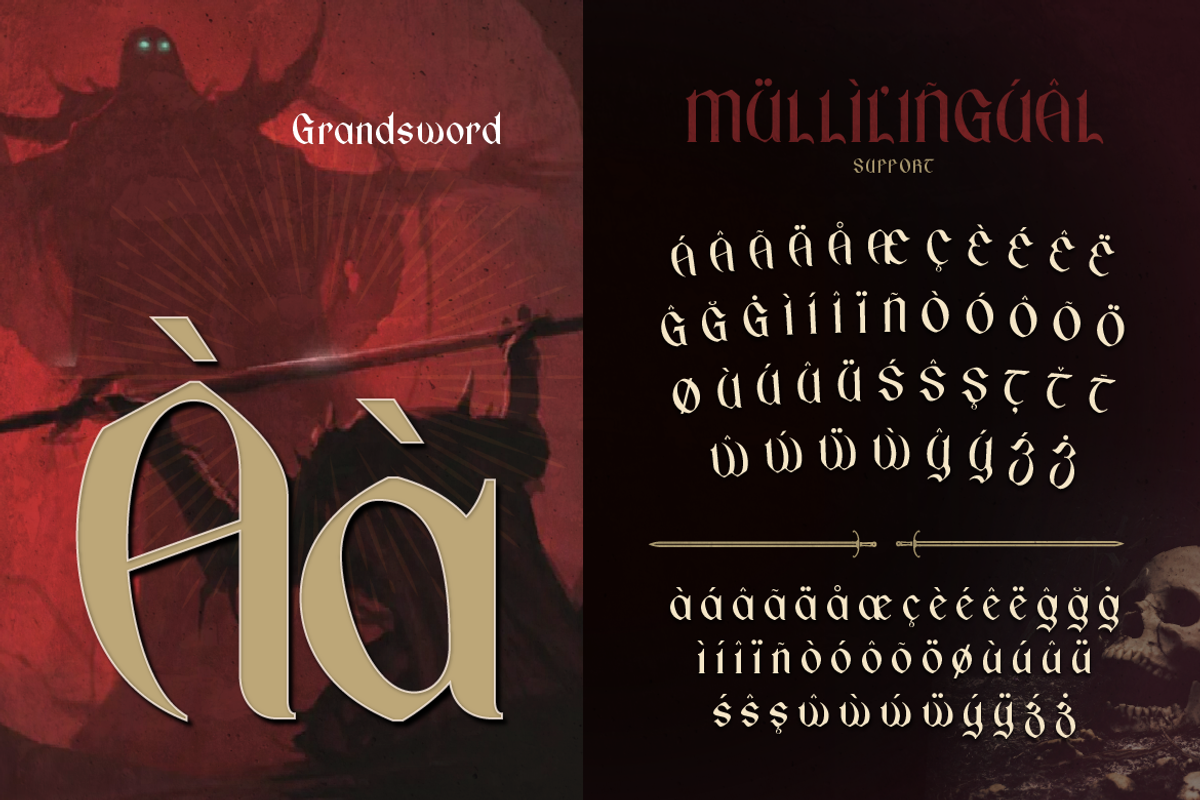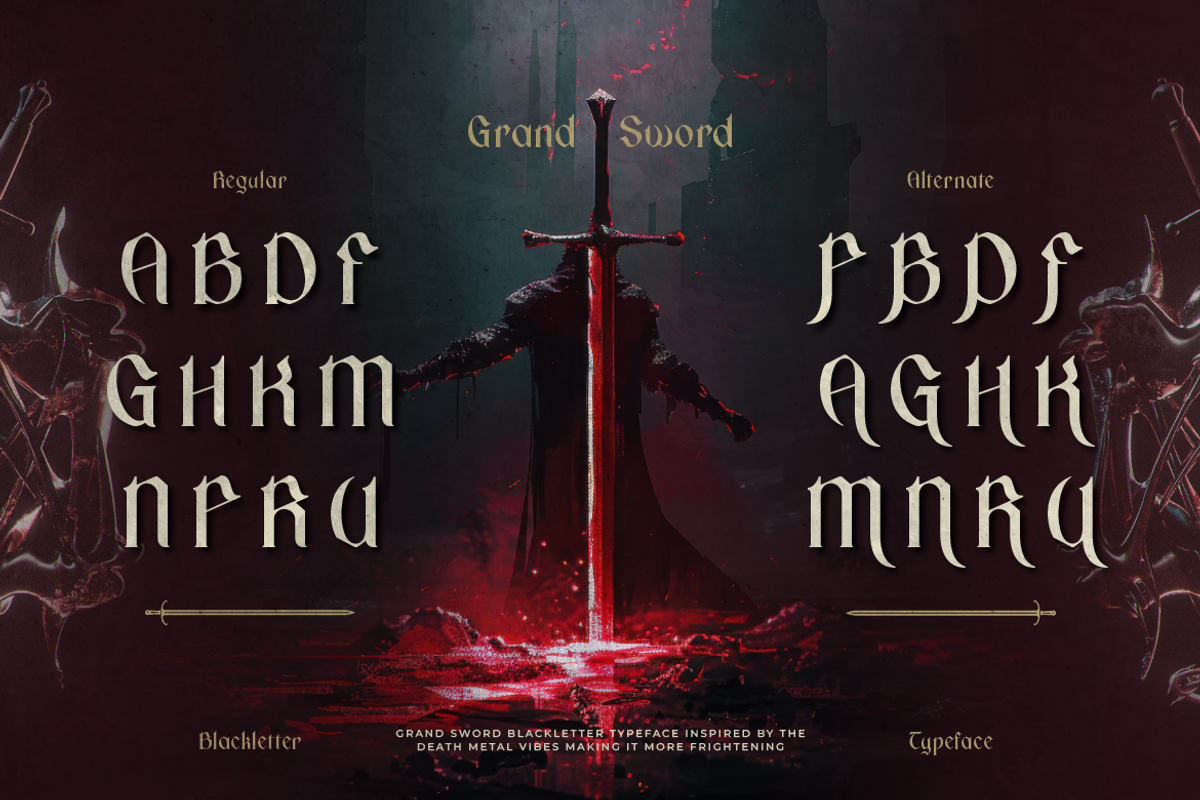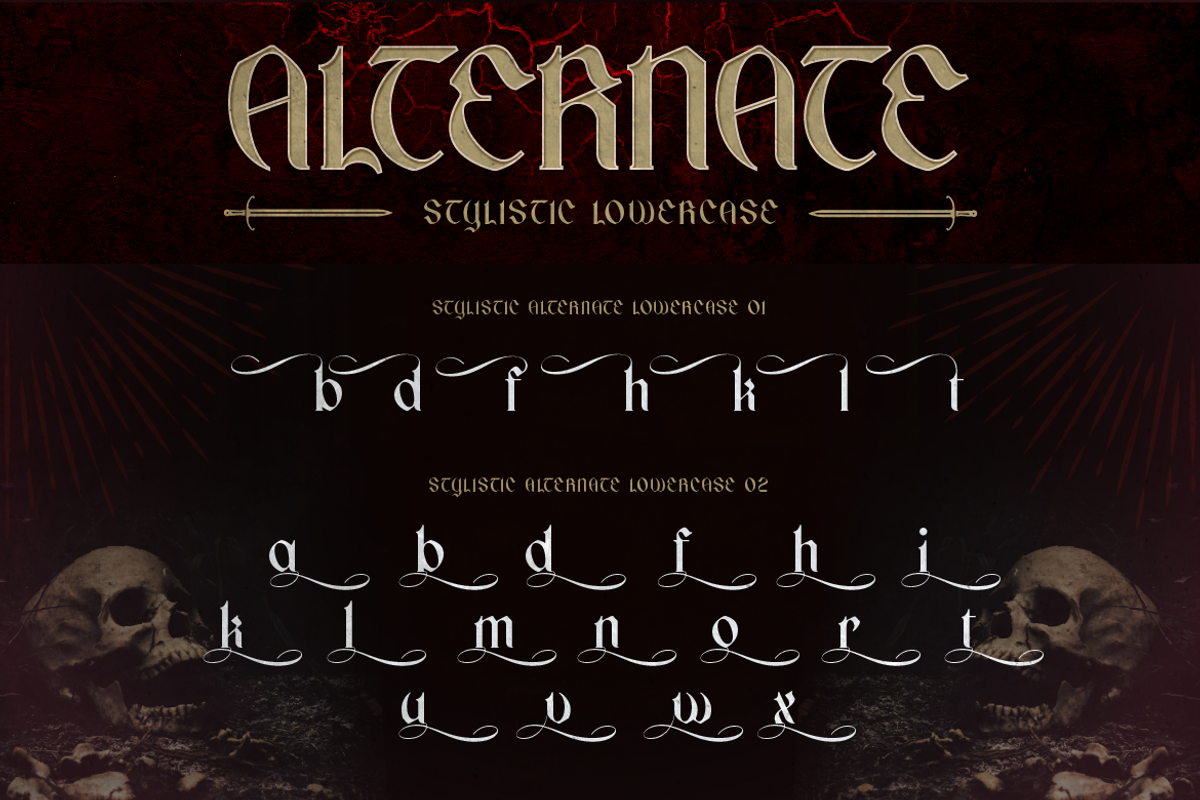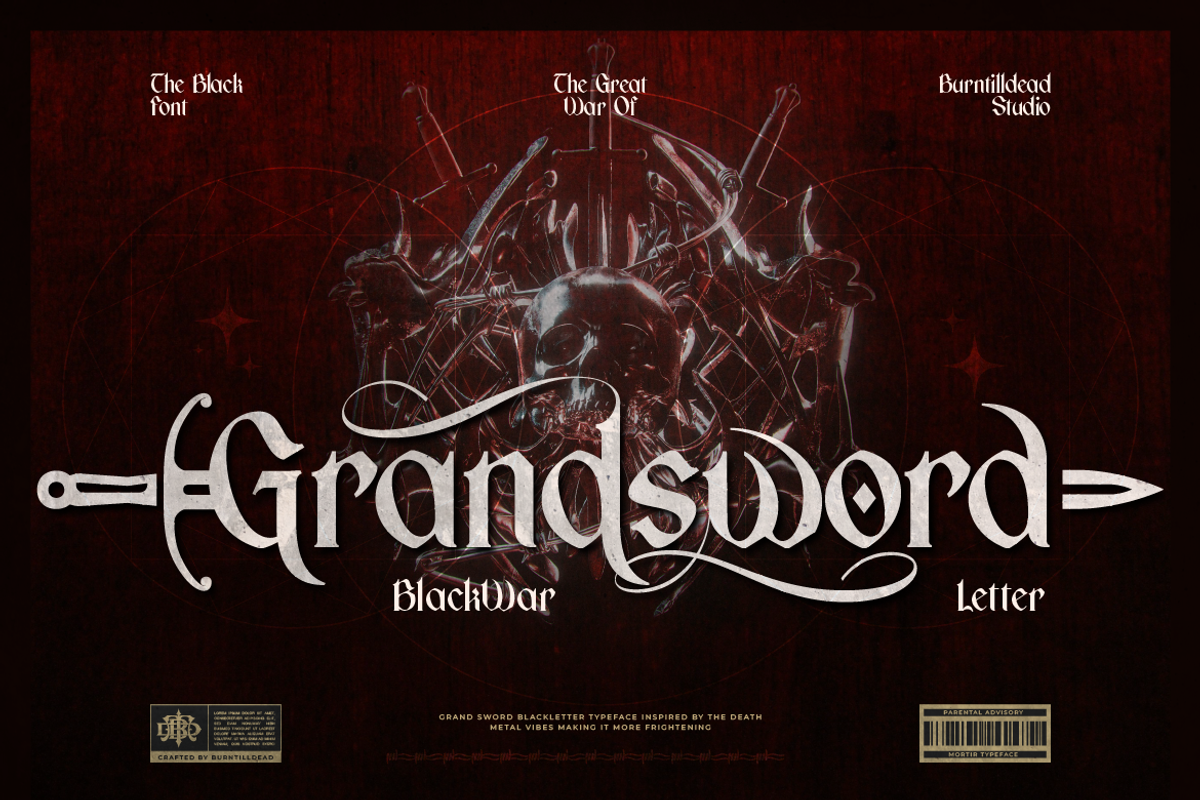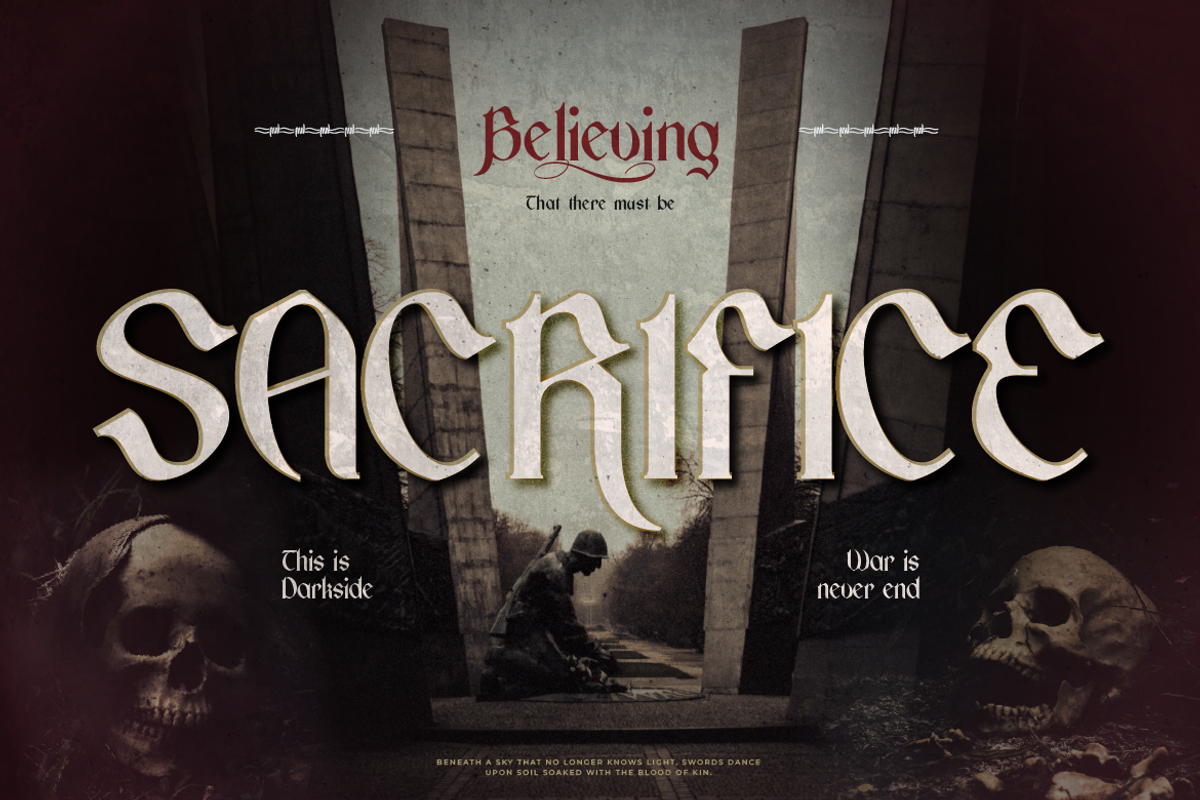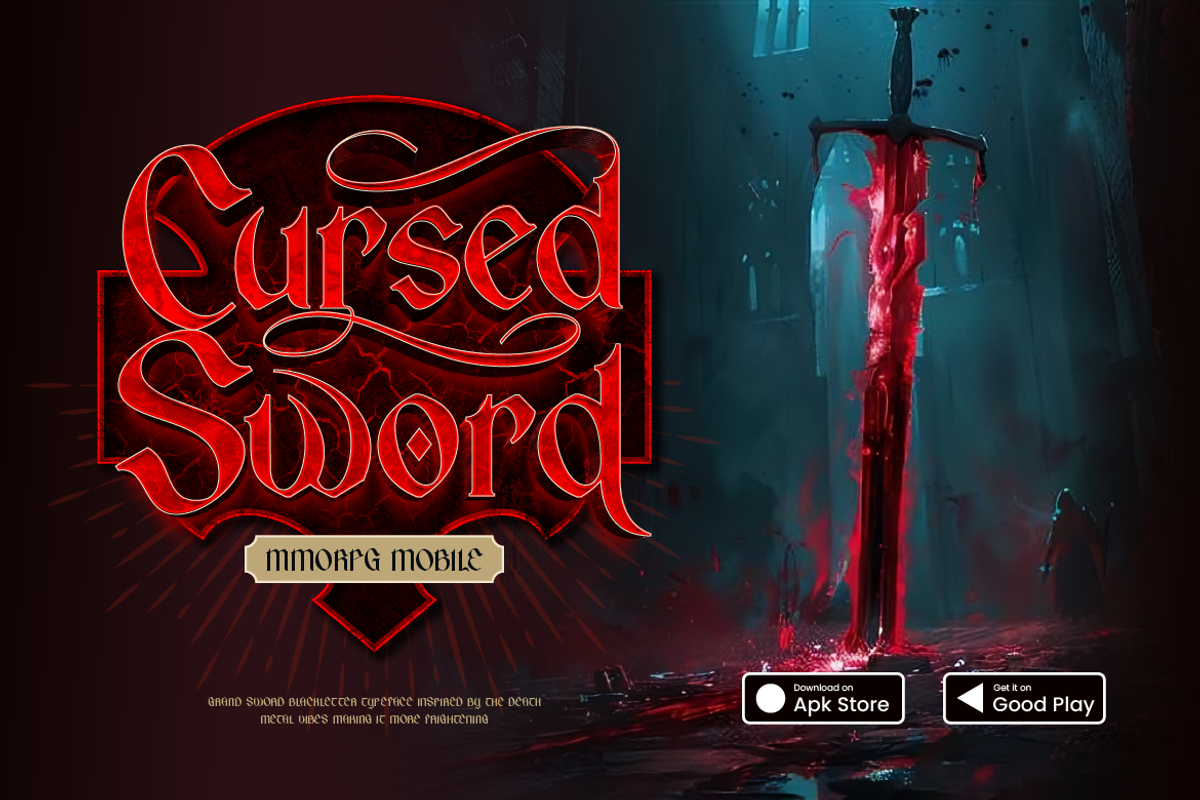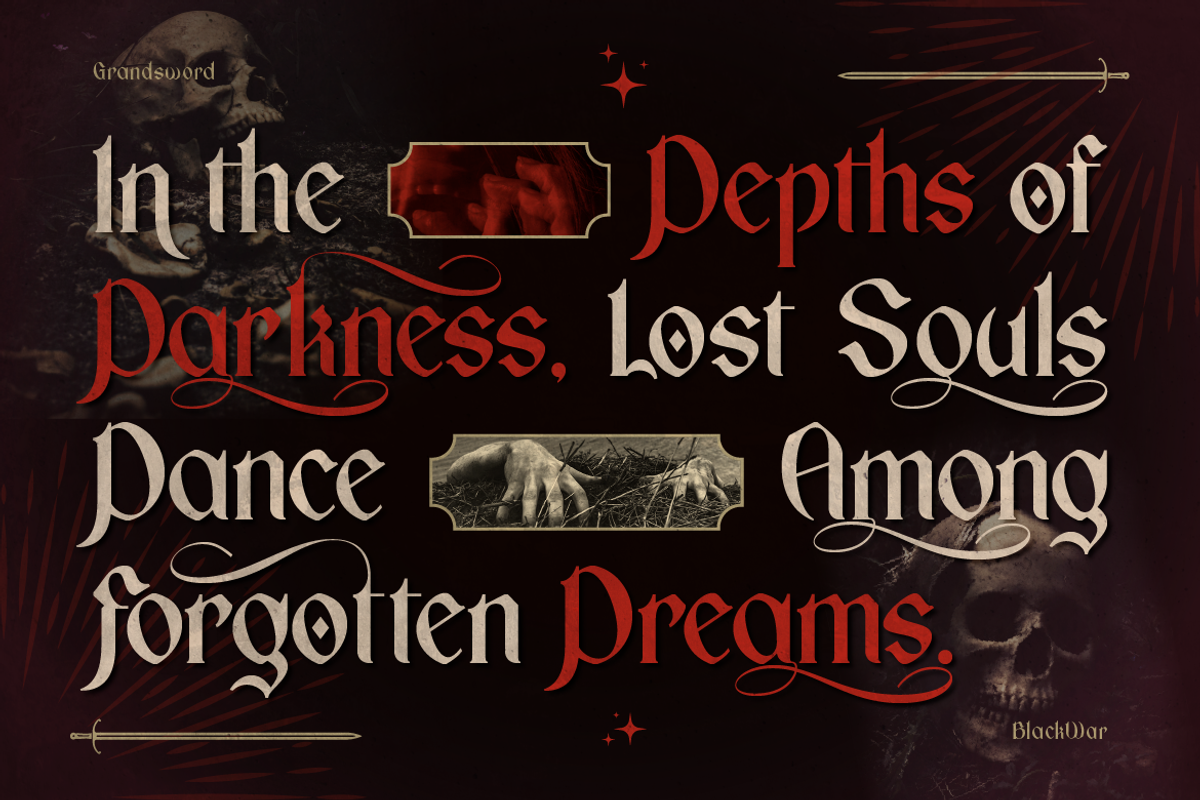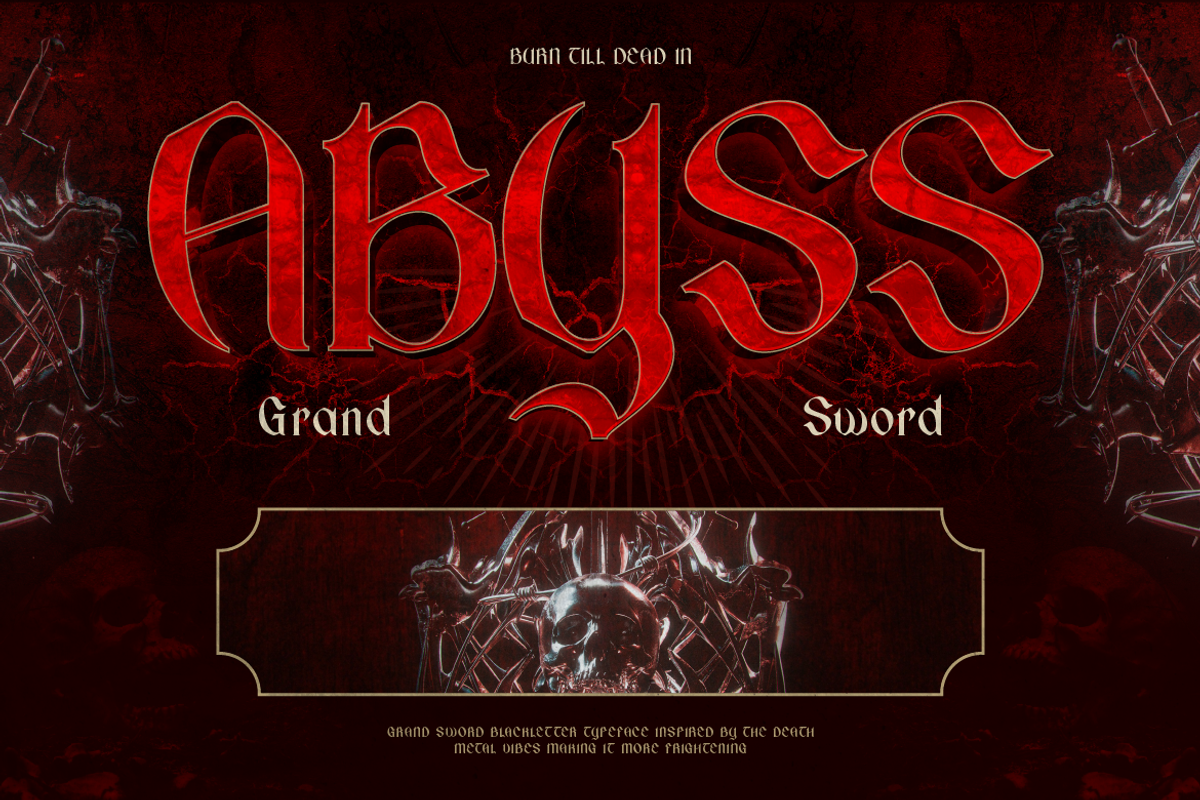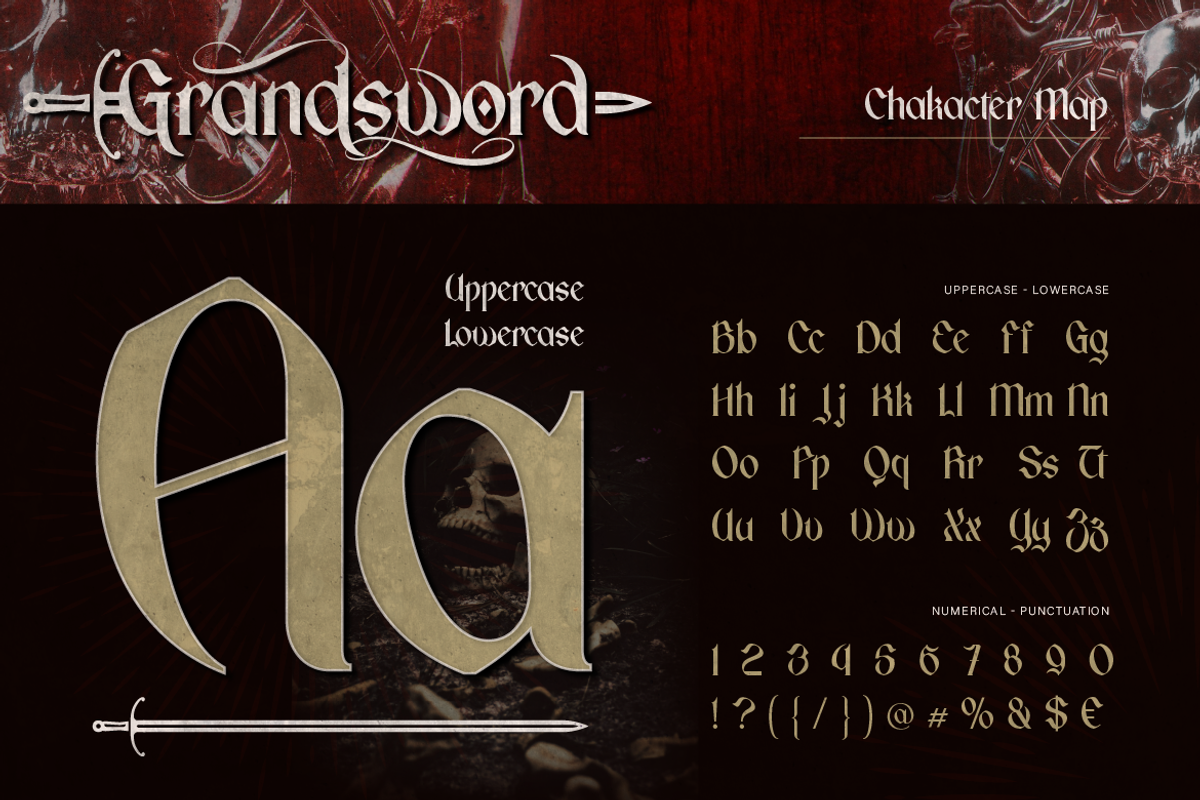
Grandsword
Proudly present, Grandsword, a blackletter font that evokes the aura of medieval warfare and the dark metal world. Its sharp, gothic, and ornamental letterforms reflect this intense atmosphere. With epic alternate characters, this font delivers a strong sense of classic style. The kind of font you'd expect to see on a death metal album cover, posters, tattoos, games or the title of a war film — perfect for designs that demand a touch of epic battle and dark beauty.